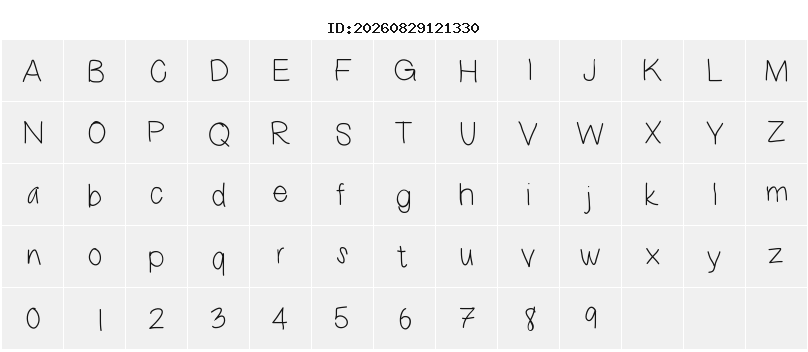
ThisSux Preview
• Font Name: ThisSux
• Full Font Name: ThisSux
About ThisSux.ttf
ThisSux.ttf is a modern, elegant sans-serif font designed for ultimate readability and visual harmony. Perfect for branding, headlines, web design, and print materials.